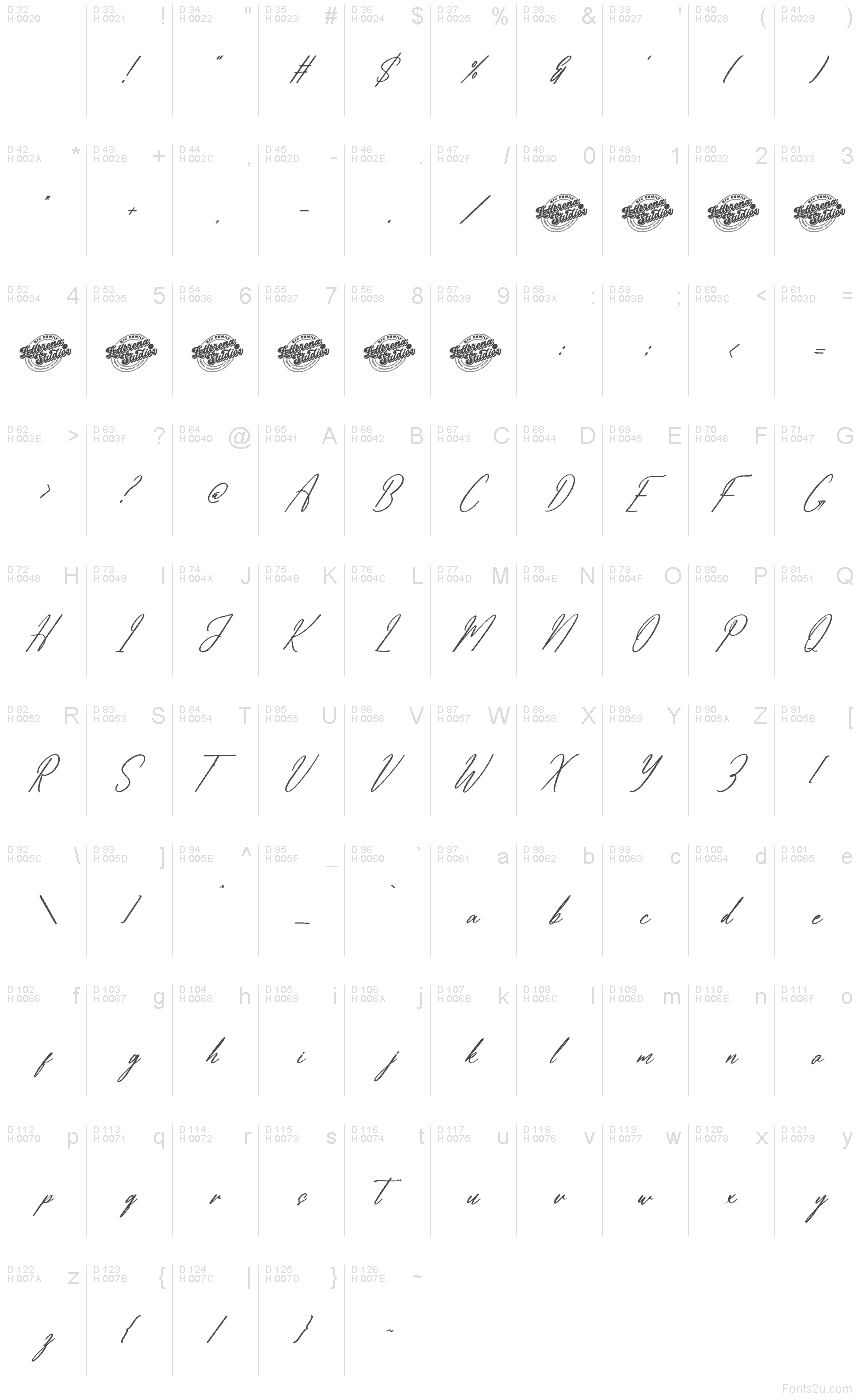
Amethykan DEMO VERSION Italic
Amethykan Italic font by Letterena Studios is a free handwritten typeface that solves a common brief: a signature look that stays readable. Its fine, inky strokes feel like a quick, confident pen glide—leaning forward with slim, elongated forms and just a hint of texture. The Amethykan family vibe comes through in the graceful slant and easy rhythm, so names, short phrases, and marks hold together without slipping into messiness.
Using Amethykan Italic, you’ll hit the sweet spot for signature logos, wedding suites, boutique packaging, social posts, watermark branding, and blog headers. The spacing is airy, giving words a luxe breath while remaining clear at medium sizes. Pair this free font with a clean, light sans for body copy, and keep Amethykan slightly larger with a touch of tracking to show off its glide.